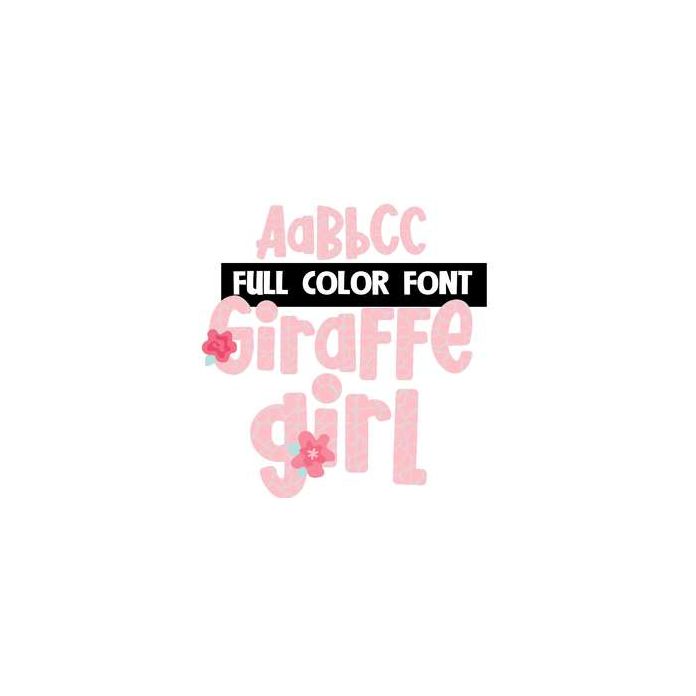
This full-color font features a pinkish giraffe print in lettering with additional flowers in place of the < and > symbols that you can use to decorate your giraffe lettering. This font works best for titles, displays, posters and more. Please note color fonts will show as black in non compatible programs. This font type is compatible with Silhouette Studio.